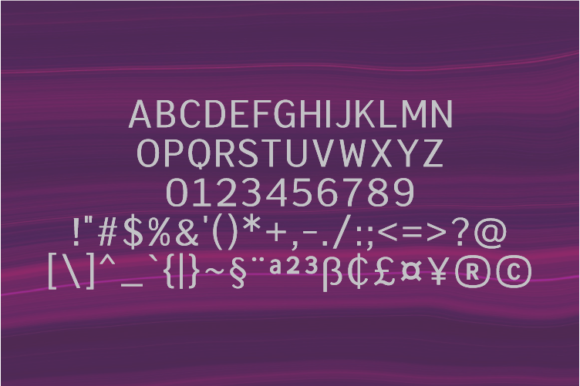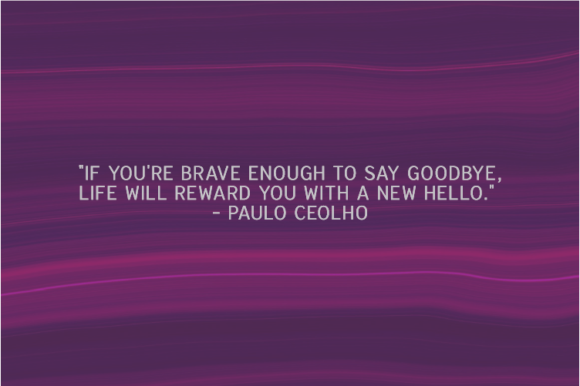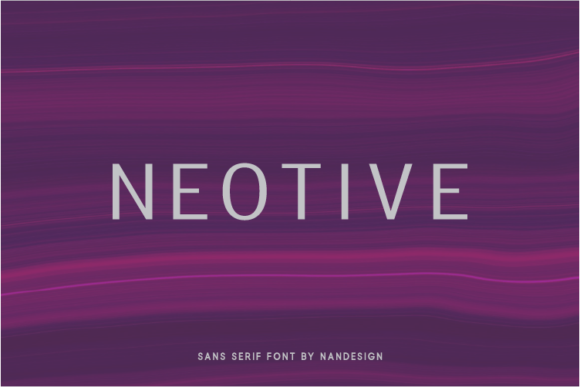
Introduction to Neotive Font
Neotive is a thin lettered and simple sans serif font.
Use it to create headings, gorgeous invitations, stunning logos, and various other designs that require a futuristic touch .